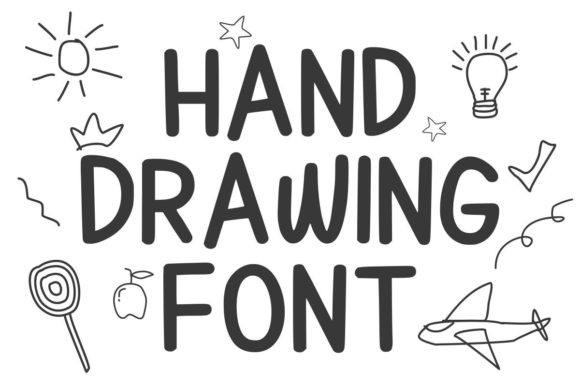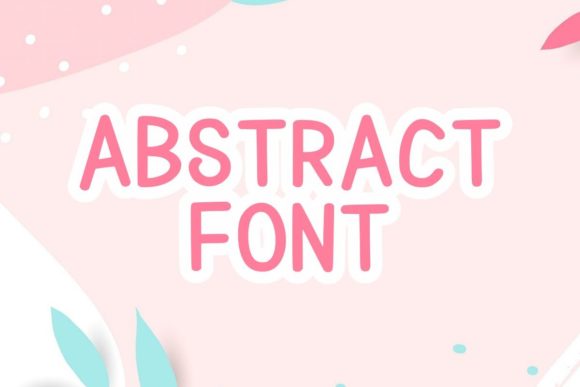
Beauty Doodle Font
db-ku.com - Script & Handwritten -- Beauty Doodle is a cute, simple and friendly handwritten font. Its informal style and casual vibe will make this font a go-to choice for each of your creations that require a relaxed touch.